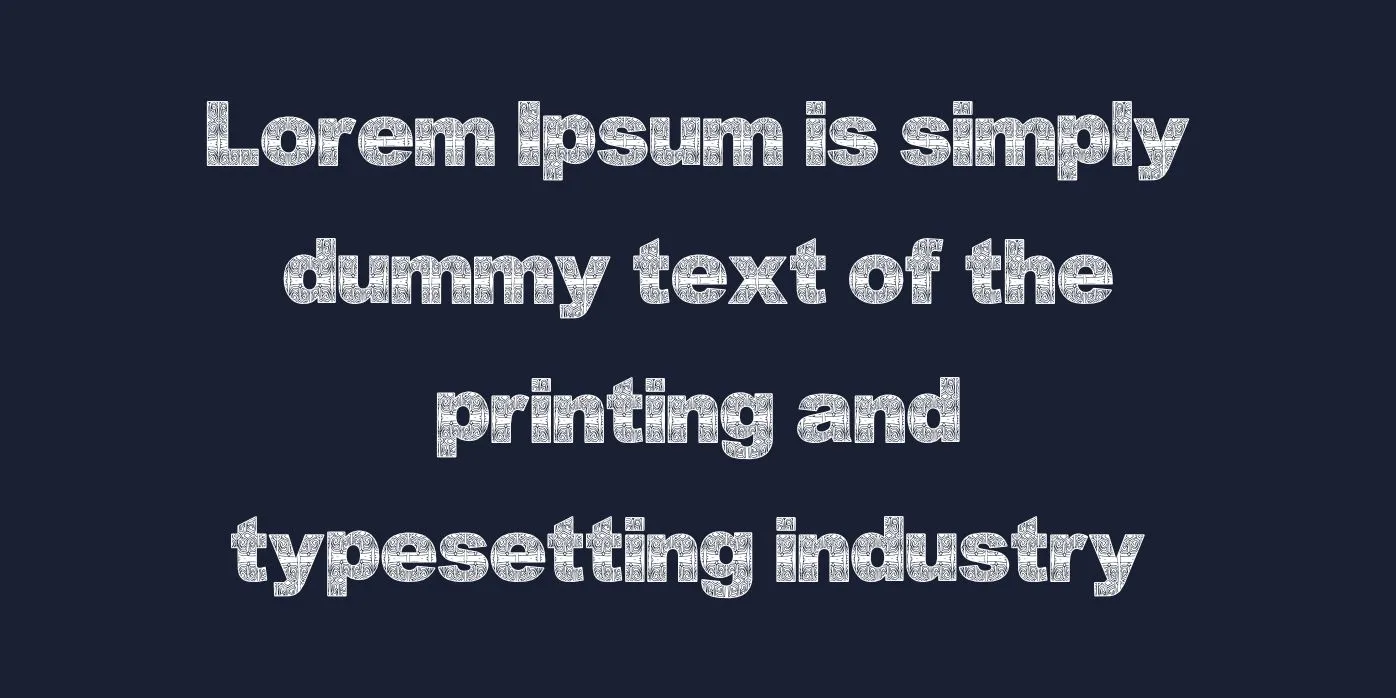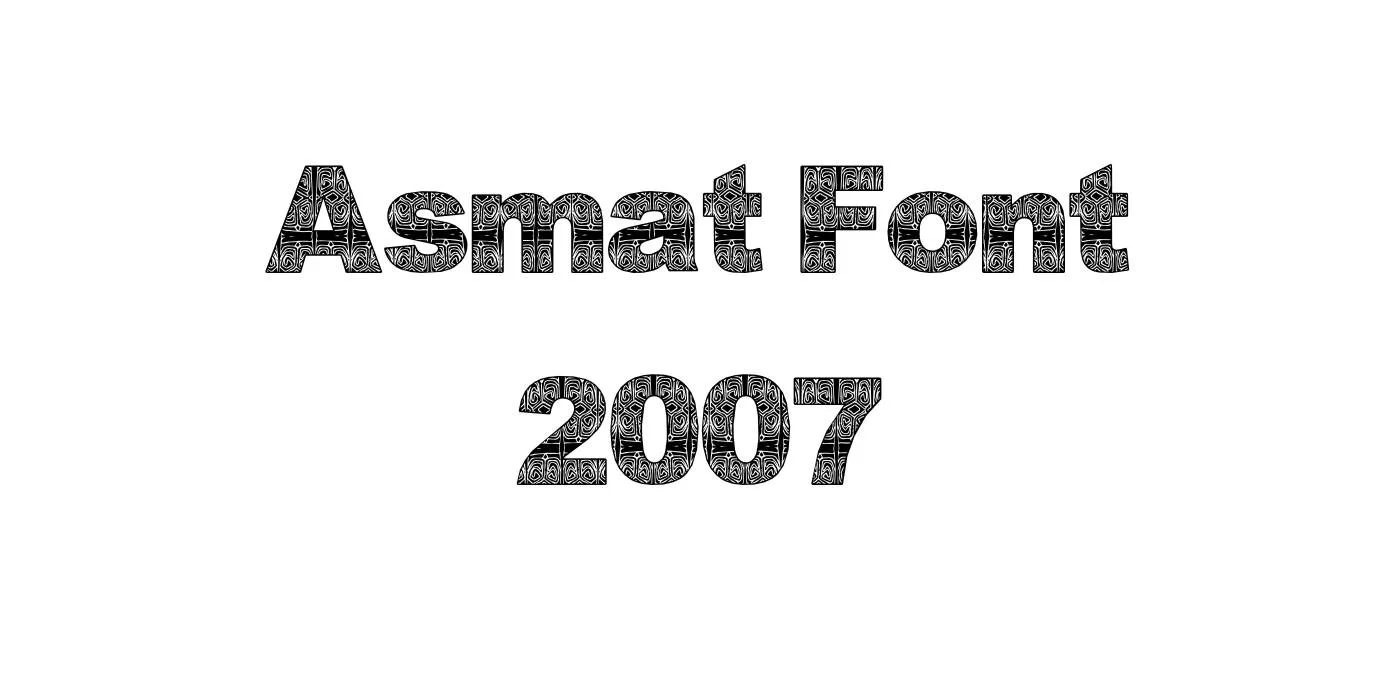
Asmat Font 2007 Font
Asmat Font 2007 Font is a very unique and amazing font. This font is designed by Asia Culture. Its creation is being processed in Indonesia by Sutrisno Budiharto. It contains characters, small letters, capital letters, and numbers.
The total numbers of glyphs are 67 and 2048 units per Em. The weight of the font is Bold and the width of the font is medium(regular). Mac style of the font is Bold. The patterned nature of this font is also bold.
Its pitch is not monospaced. This font also allows you to check or change your simple text into a stylish look by using the online generator tool. It can also be paired with other fonts to make a more attractive and amazing look. You can be paired with quick cut font.
You can be used for making prints and designs on T-shirts. Its shaded characters are more attractive and can be used to make Book titles or covers. You can also use this font for making posters and designing Stationery items. It can also be used for making or editing designs in Photoshop and other Illustrators.